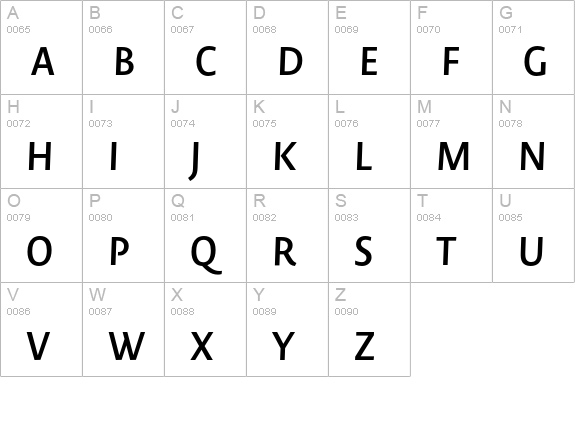
Novel Sans Pro SemiBold It Font Details
Novel Sans Pro SemiBold It is a sub-bold, structured variant in the Novel typeface family \xE2\x80\x94 well suited to sub-headlines and emphasised passages.
Novel Sans Pro SemiBold It is a versatile and modern typeface that strikes the perfect balance between professionalism and personality. With its bold weight and elegant italics, this font exudes confidence and sophistication, making it ideal for a wide range of design projects. Whether you're working on editorial layouts, branding materials, or web design, Novel Sans Pro SemiBold It offers a clean and contemporary look that commands attention. The strong vertical lines and subtle curves of this typeface create a sense of stability and reliability, while the italicized version adds a touch of flair and dynamism. What's even better is that Novel Sans Pro SemiBold It is available for free download at FontsMarket.com. So you can easily access this high-quality font and elevate your designs without breaking the bank. Don't miss out on the opportunity to enhance your projects with the timeless elegance of Novel Sans Pro SemiBold It - download it today and see the difference it can make!